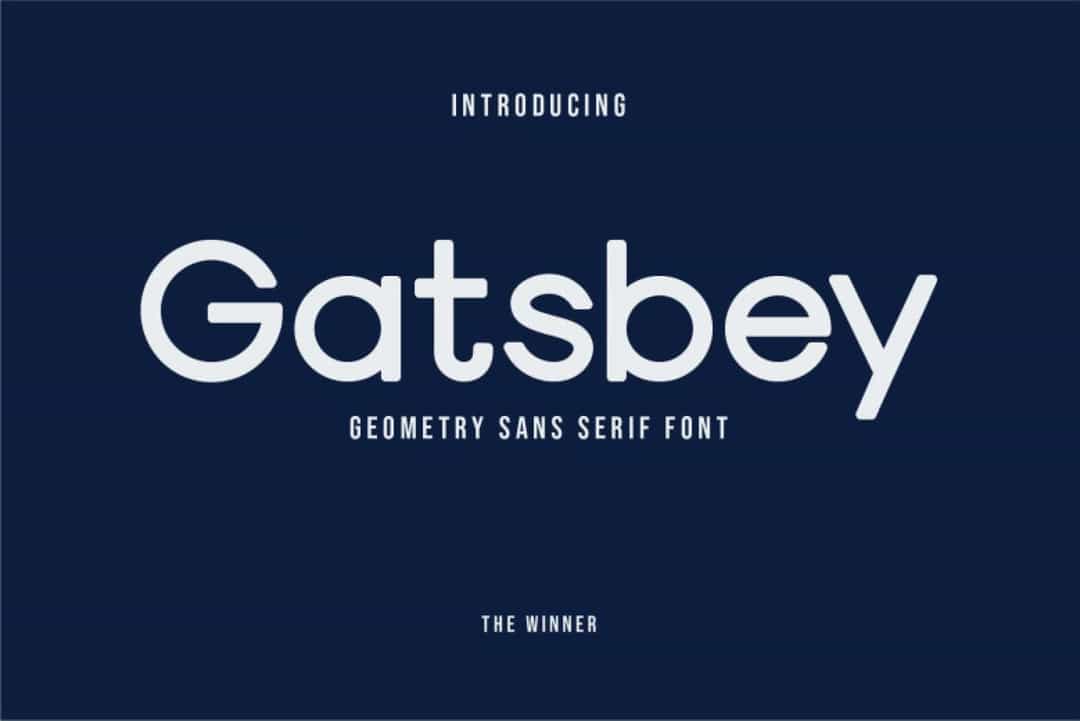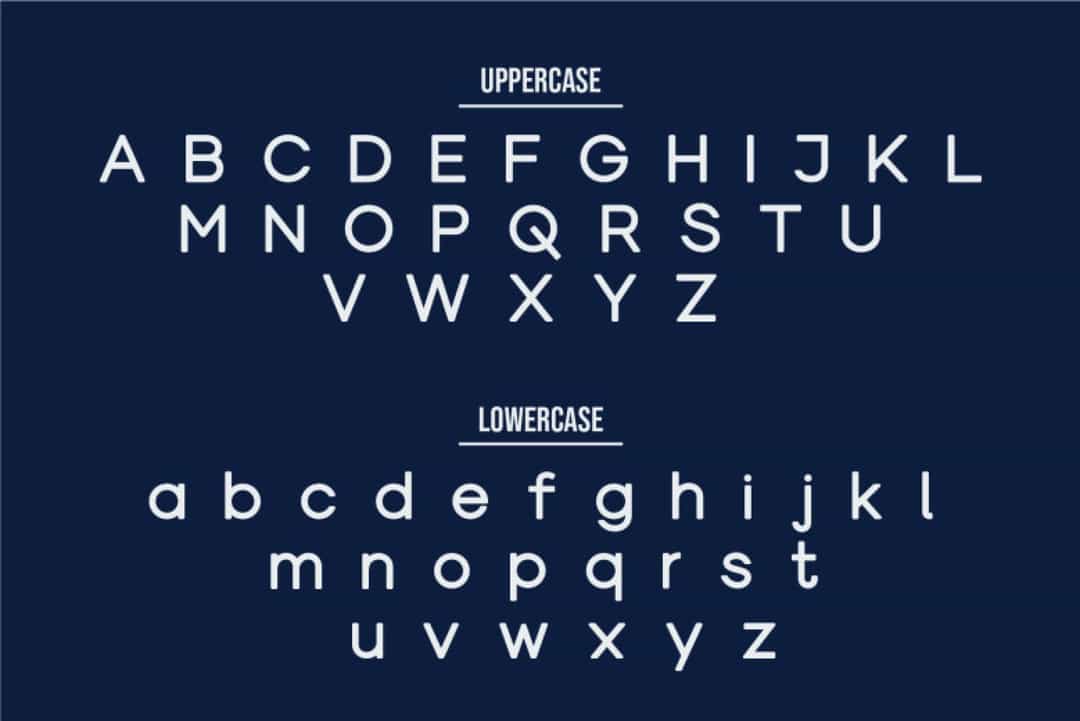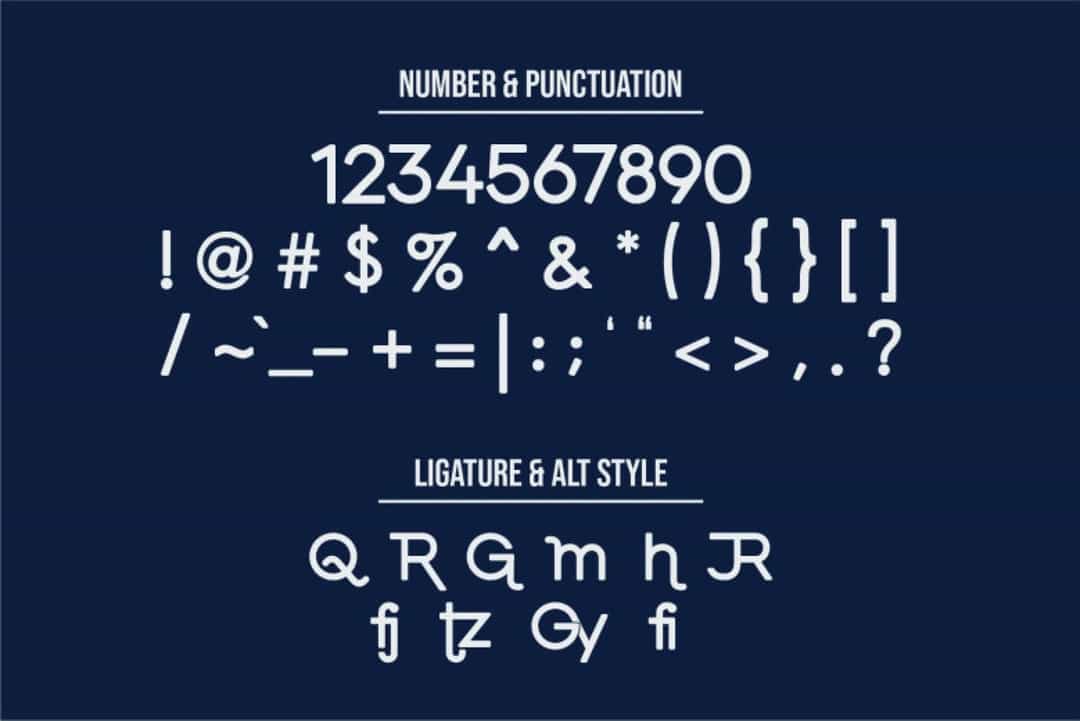
Gatsbey is an easy and clean sans serif style font that fits seamlessly with many projects. Add this font into your creativity and watch how it stands out!